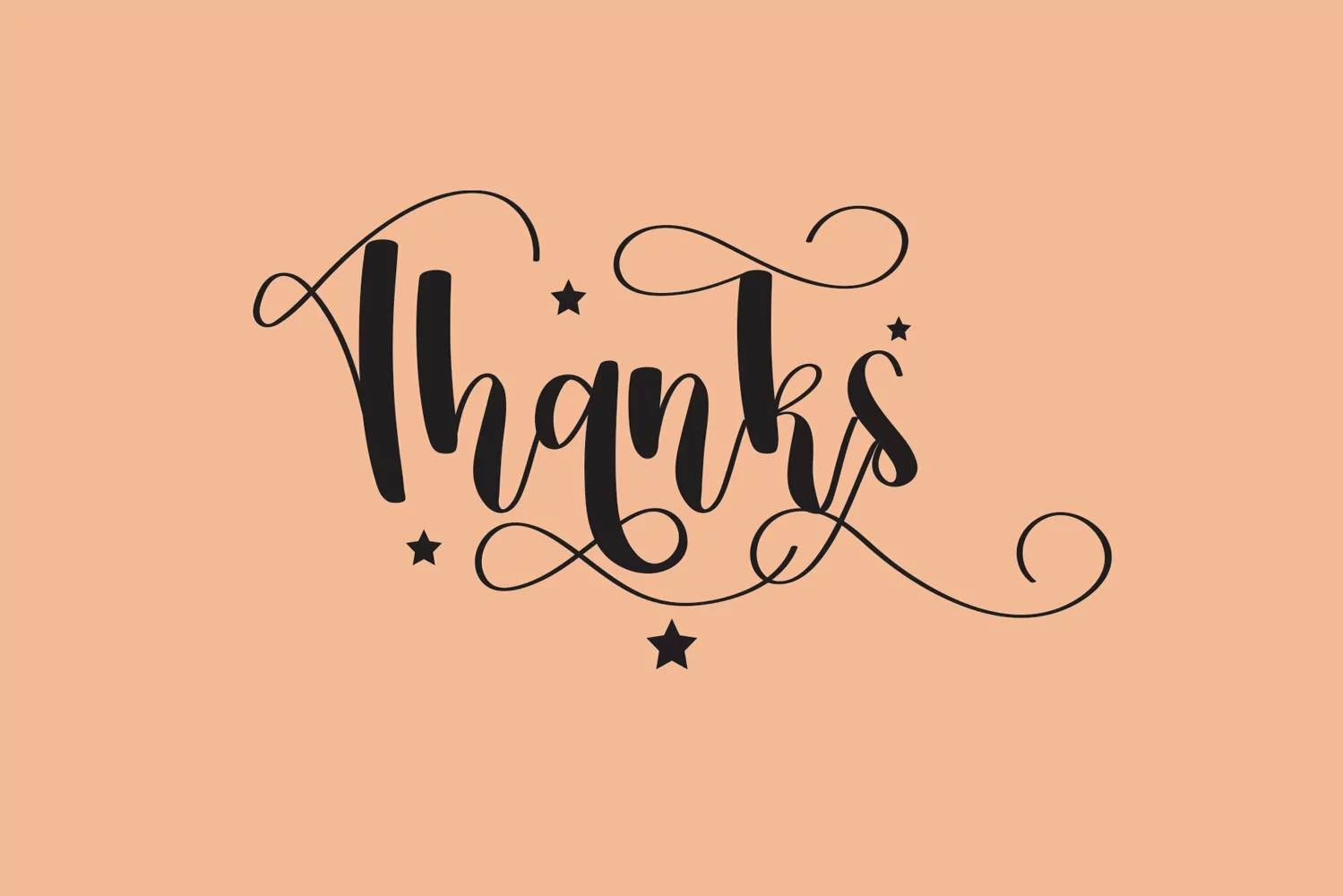
Pumpkin | Script font
Pumpkin Font is a popular and professional script font. It is Modern and elegant, this typeface is made of beautiful, creative strokes.